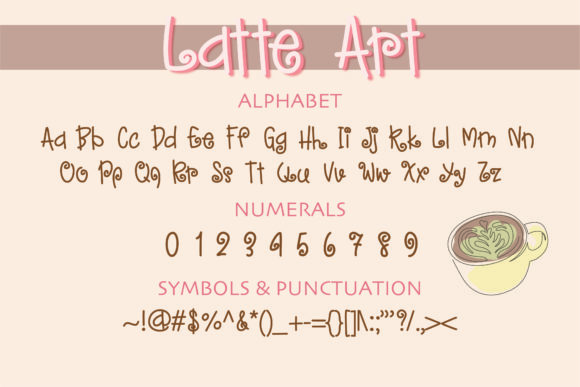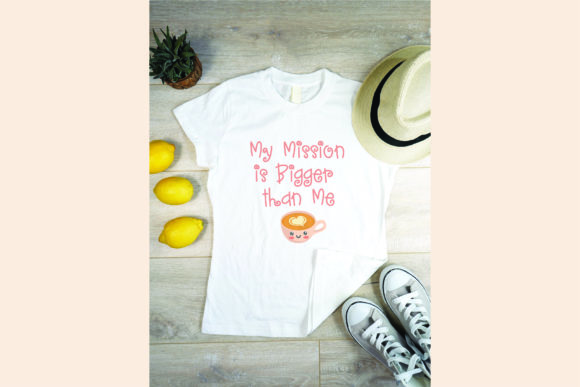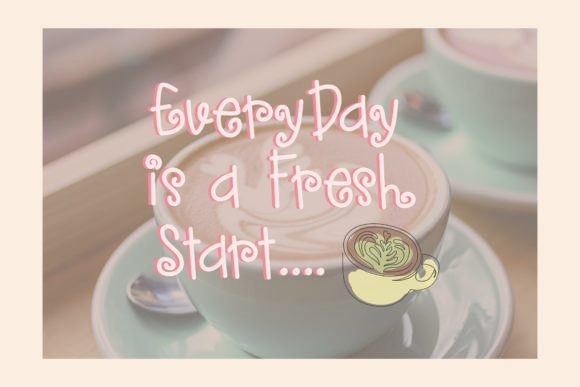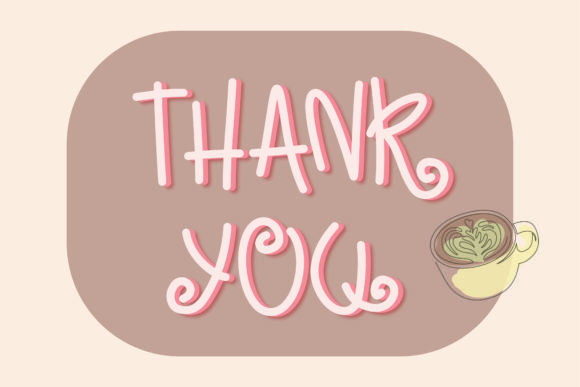
Introduction to Latte Art Font
Latte Art is a lovely handwritten font.
Get creative with its bouncy, charming style and add it to each of your inspired ideas It looks stunning on wedding invitations, thank you cards, quotes, greeting cards, logos, and more.